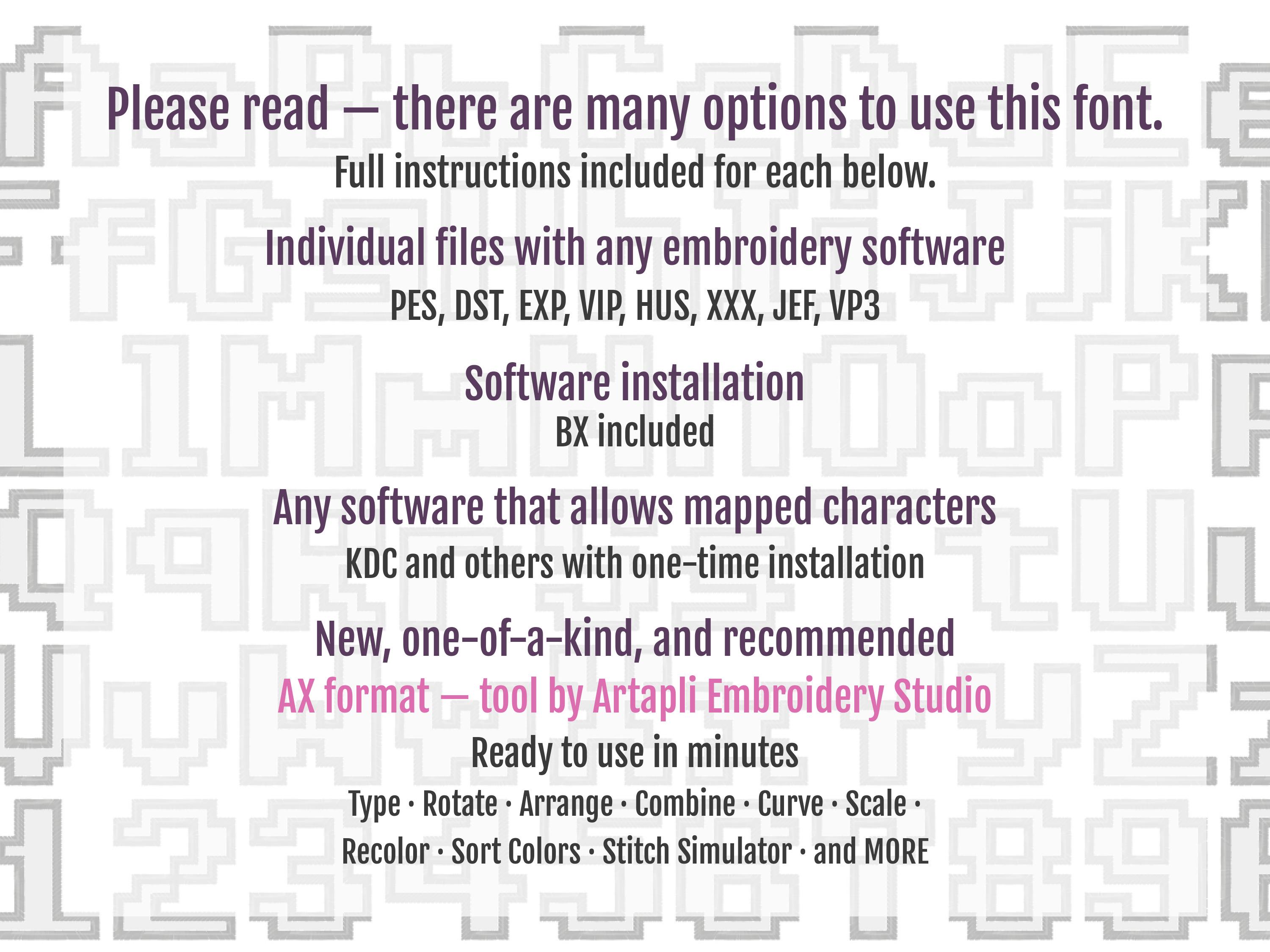
Miner Bricks pixel Font machine embroidery applique alphabet, monogram, machine embroidery design, brick letters, brick font for kids boy
Stitched out beautifully without any weird jumps, applique fabric is well secured. (Pixeled minky came from Spoonflower.)
Stitched out perfectly! Grandson loved his Minecraft shirt.